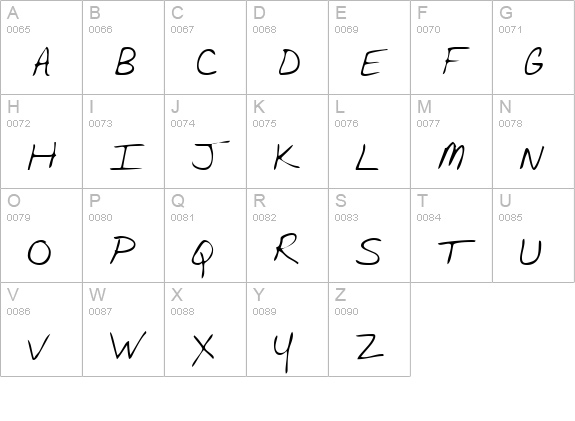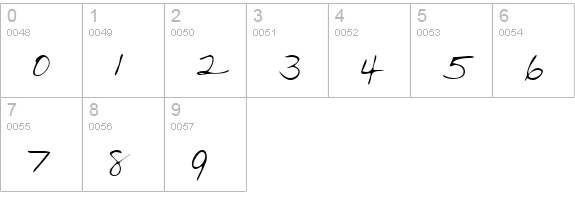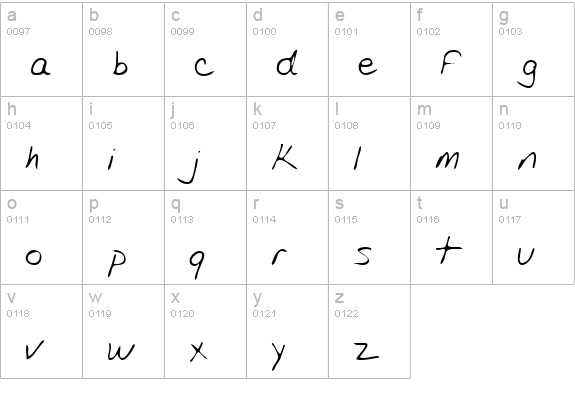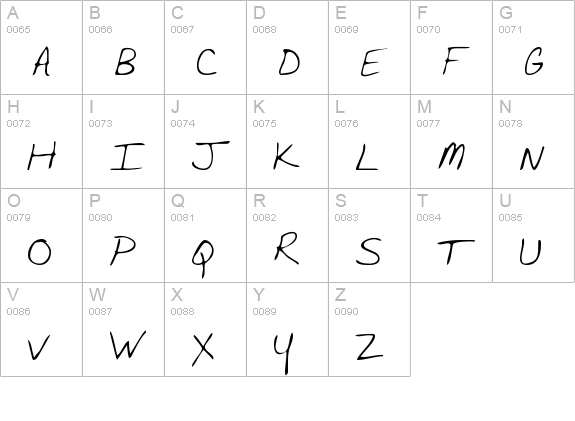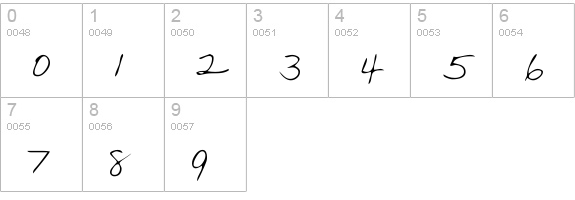
LaurensHand Regular is the standard, neutral variant in the LaurensHand typeface family \xE2\x80\x94 well suited to general body text, paragraphs, and standard typographic work.
LaurensHand Regular font is a charming and playful typeface that adds a touch of whimsy to any design project. With its slightly uneven strokes and handwritten feel, this font exudes a sense of warmth and creativity. It is perfect for adding a personal touch to invitations, greeting cards, logos, and more. What makes LaurensHand Regular font even more appealing is that it is free! Yes, you read that right – this delightful font is freely available to download at FontsMarket.com. Whether you are a professional designer or someone looking to add a creative flair to their personal projects, you can now enjoy the beauty of LaurensHand Regular font without any cost. Designed with versatility in mind, LaurensHand Regular font is equally suitable for both print and digital media. Its legible yet unique character makes it an excellent choice for headlines, titles, and body text alike. The generous spacing and carefully crafted letterforms ensure readability even at smaller sizes. The beauty of LaurensHand Regular font lies in its ability to effortlessly capture the essence of handwritten lettering. Each letter carries its own personality, adding a sense of authenticity to your designs. Whether you're aiming for a nostalgic vintage look or a modern and fun aesthetic, LaurensHand Regular font is the perfect companion. So why wait? Experience the joy of LaurensHand Regular font and elevate your designs to new heights. Download it freely today at FontsMarket.com and let your creativity flow.